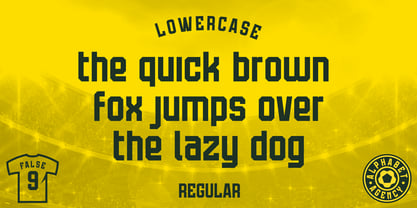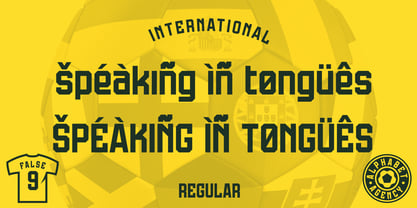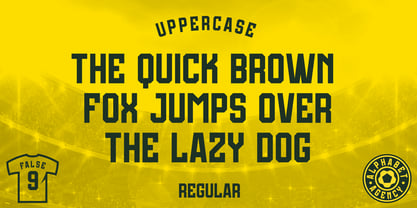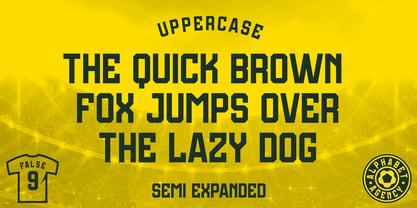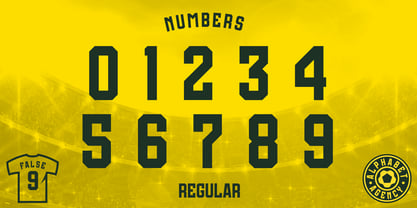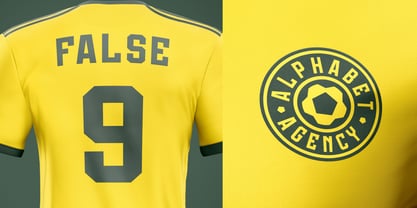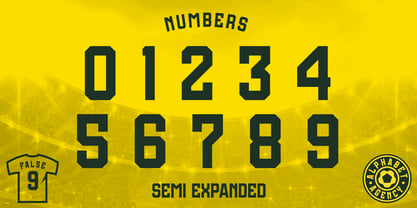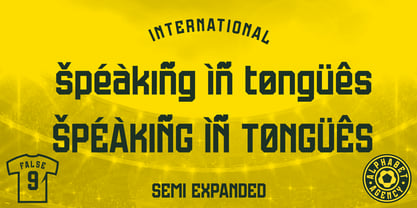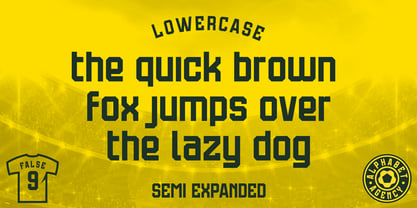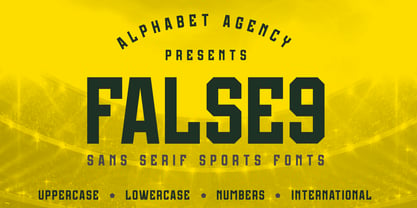
False9
by Alphabet Agency
The False9 Font Family was designed by Swinn Jonathan and published by Alphabet Agency. False9 contains 2 styles and family package options. More about this family
False9 Regular and Semi Extended are sans serif fonts design by Jonathan Swinn of the Alphabet Agency Font Foundry. The font was originally designed for use in sports themed design.
Each of the fonts includes Latin uppercase, lowercase, numbers and punctuation letters.
The font takes its name from the forward football/soccer position of the same name.